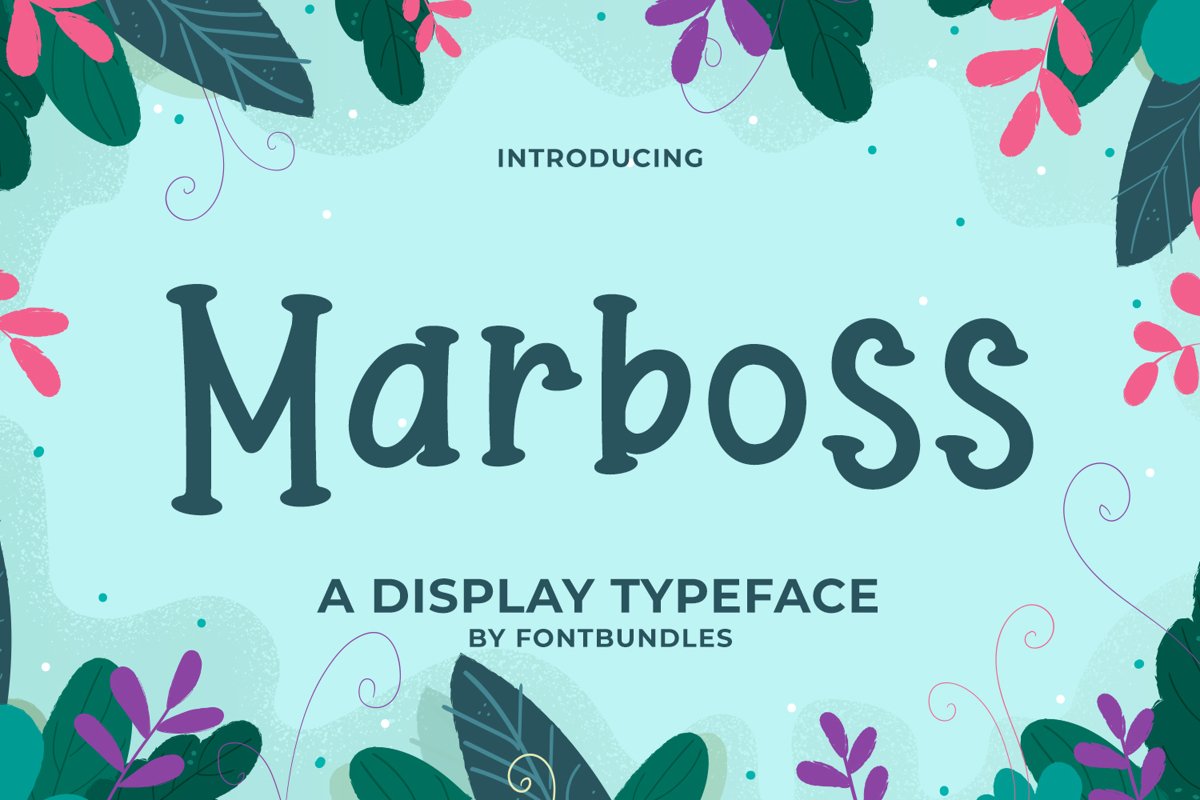
Marboss
Marbos is a display typeface. Perfect for display, quotes, business card, name card,logo, logotype, header, tittle, book cover, merchandise, packaging, crafting needs, florist needs and many more.